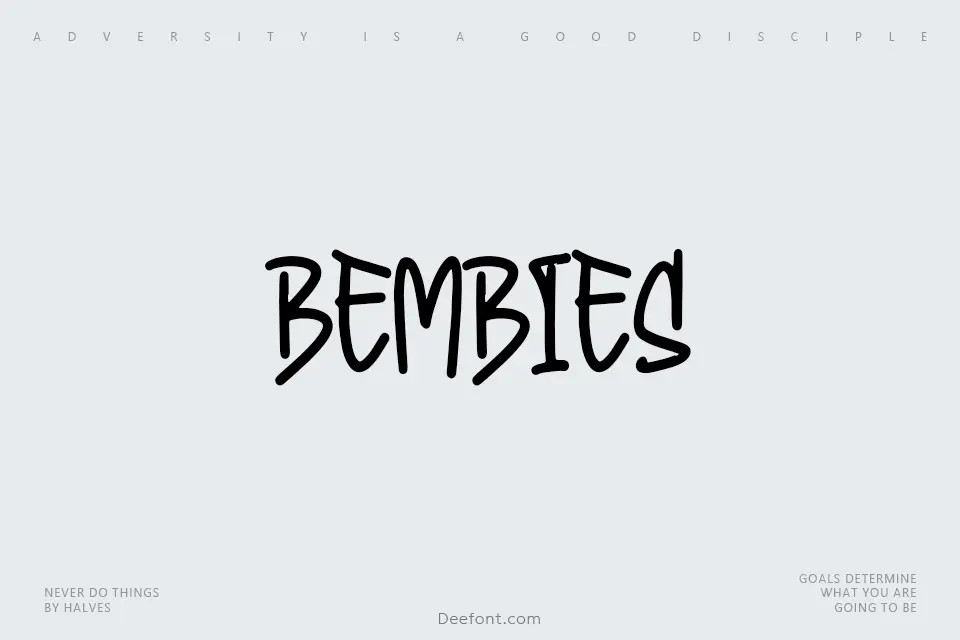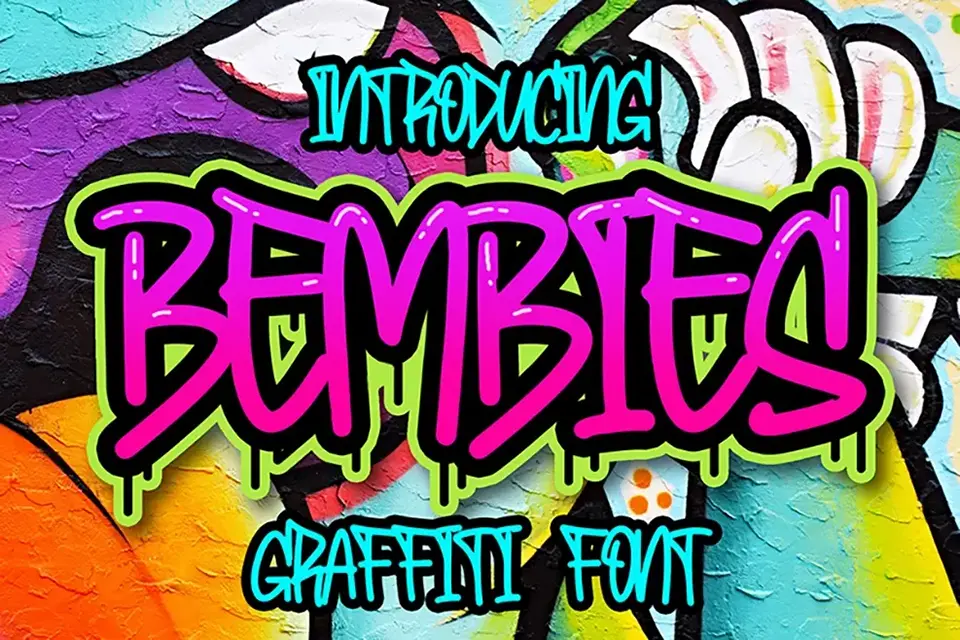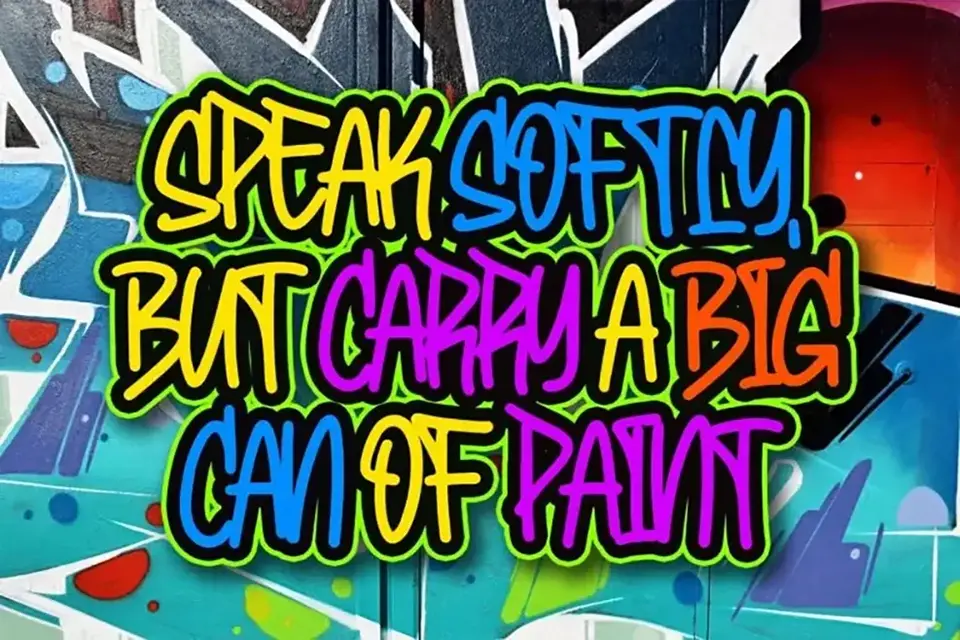
Bembies Font
Bembies is a playful and charming graffiti-inspired script font featuring rounded, hand-drawn letters that evoke a cheerful, youthful aesthetic. Perfect for children’s books, cartoon designs, posters, and creative branding projects, this font brings a fun and friendly character to any design composition, ideal for projects that require personality and warmth.